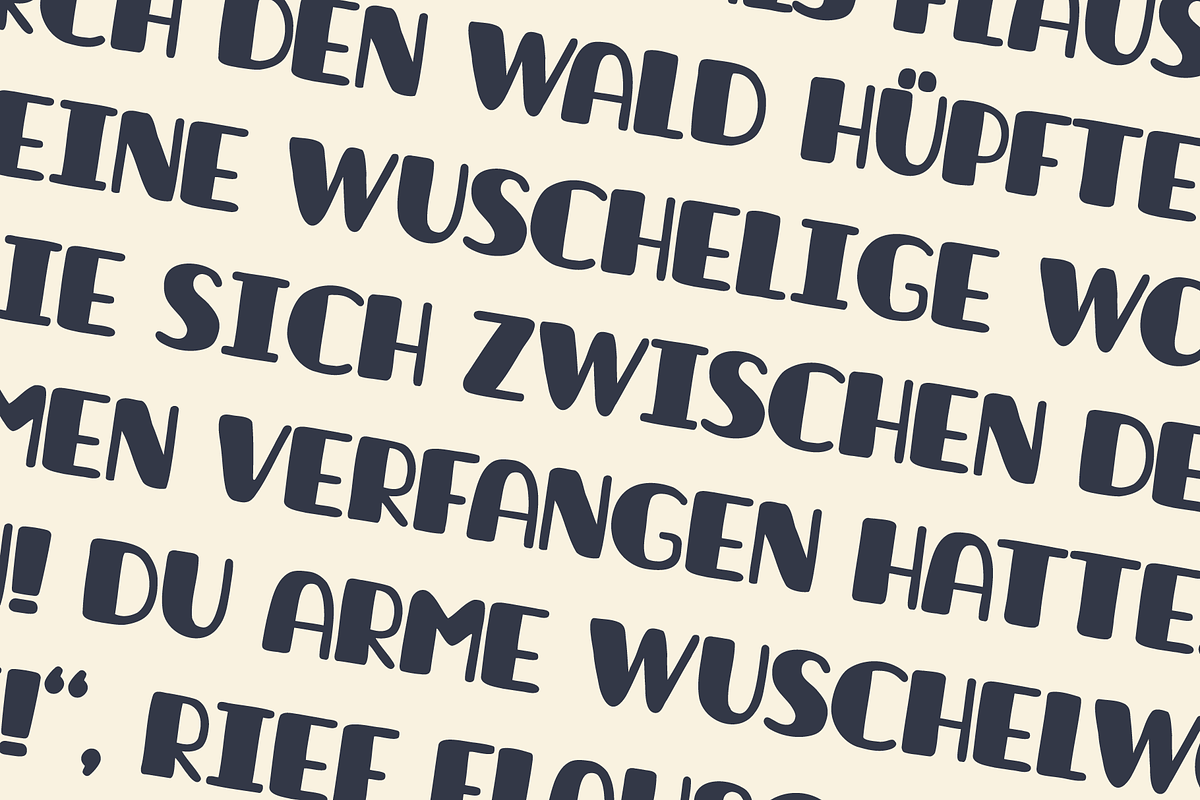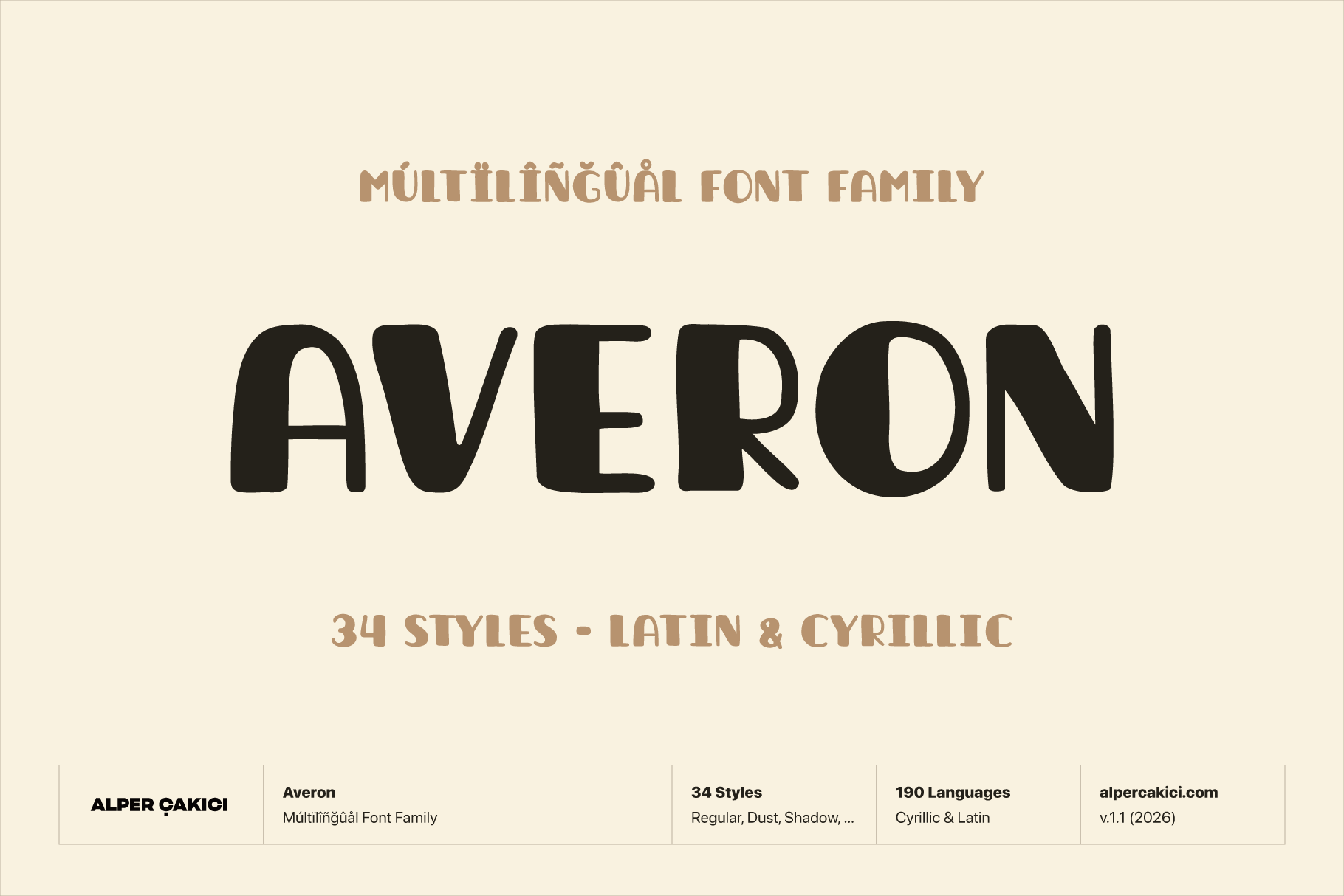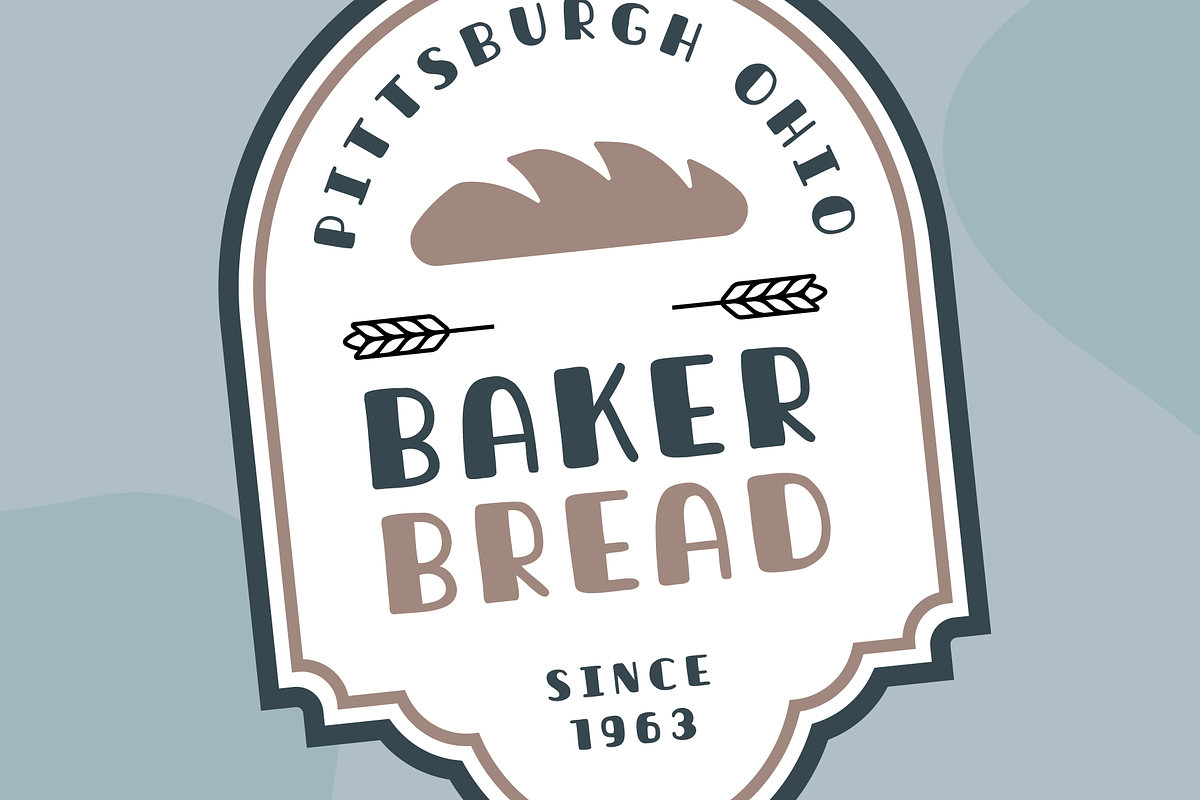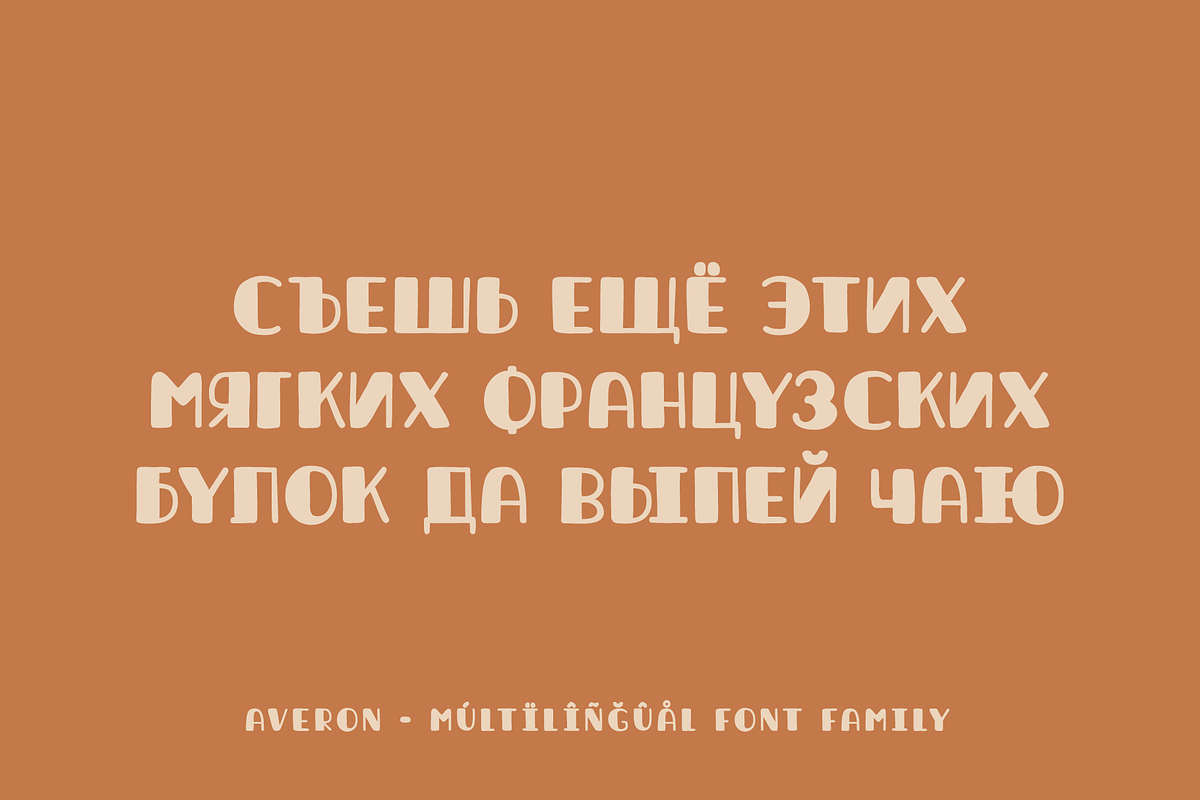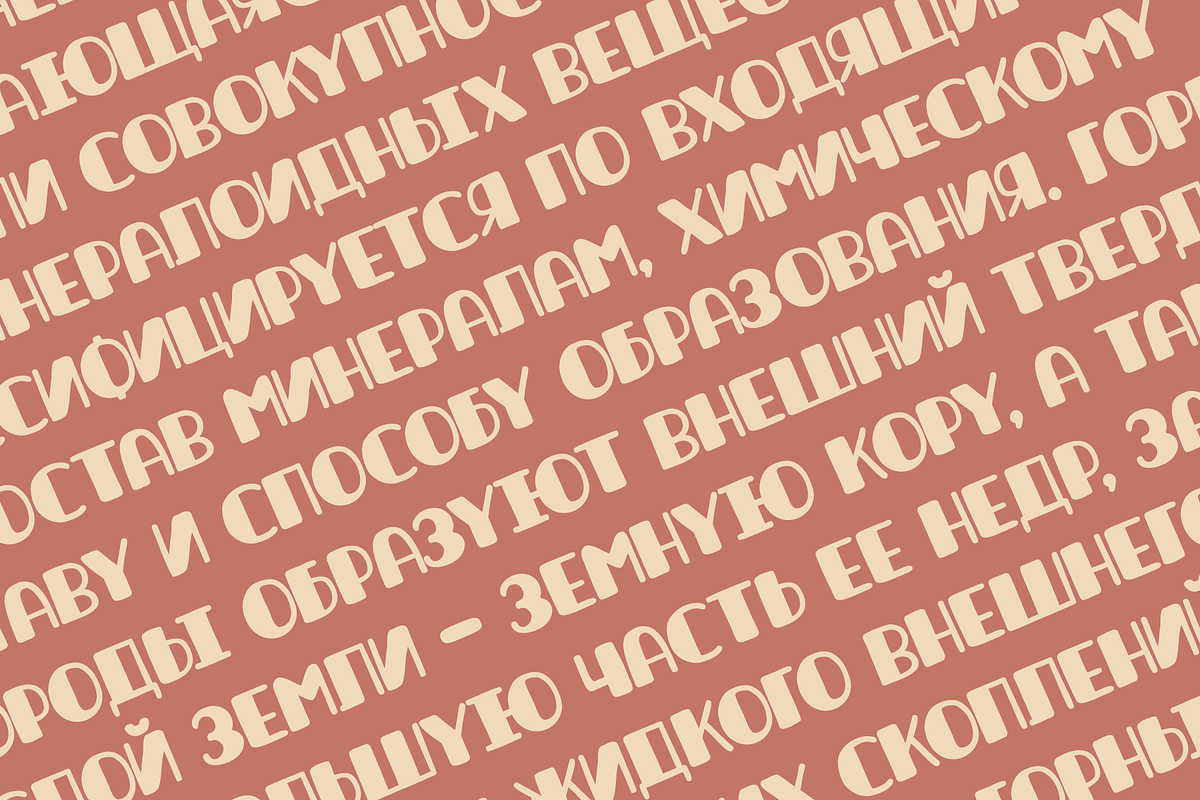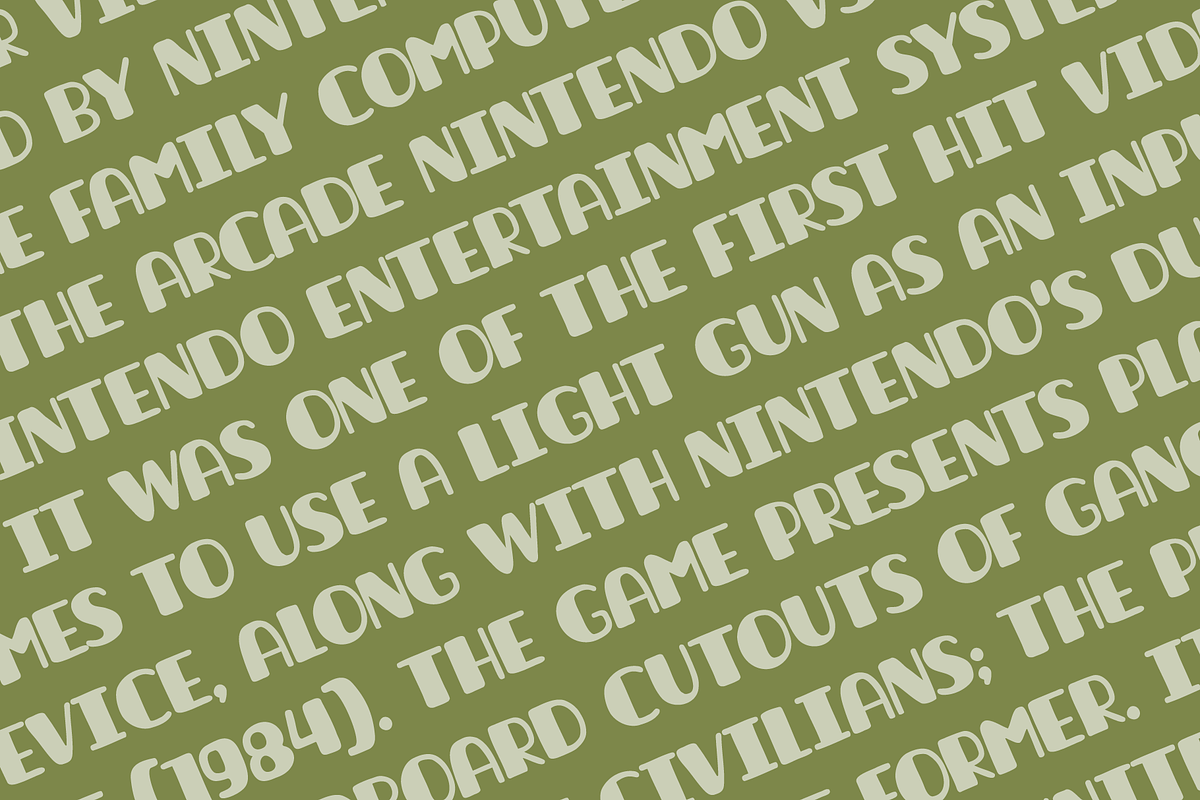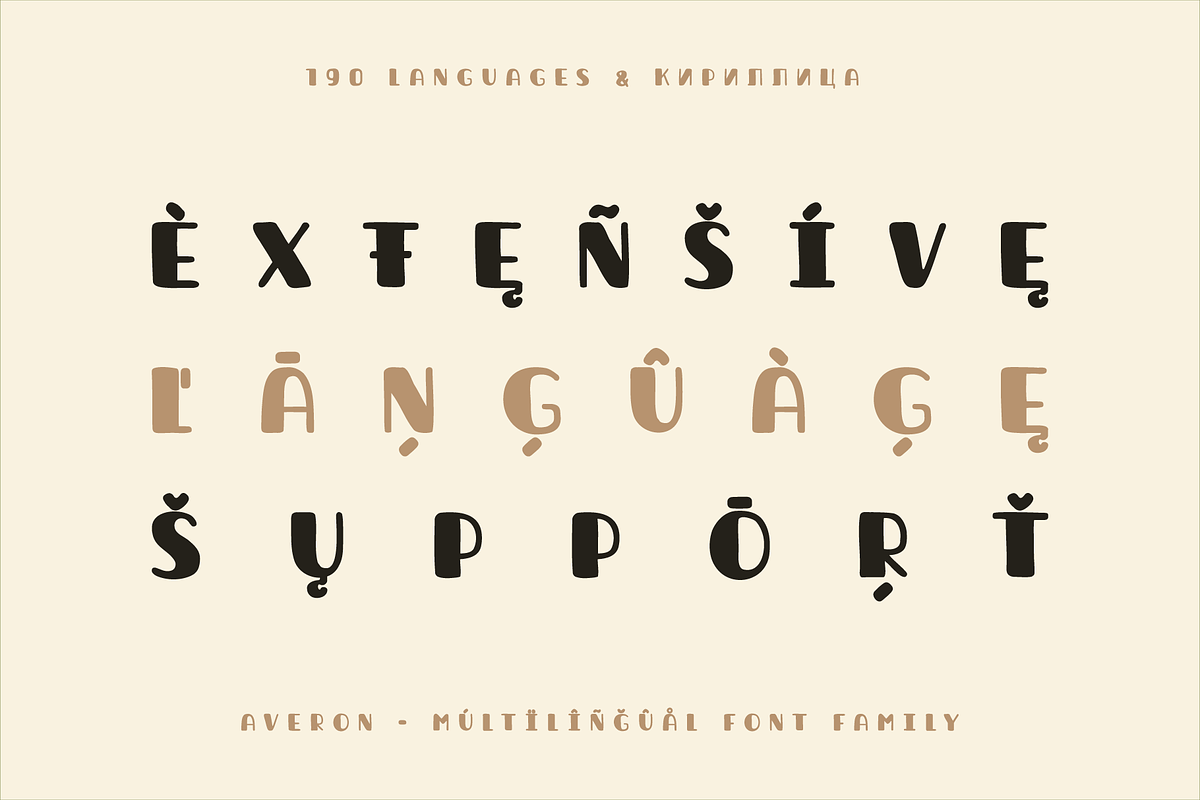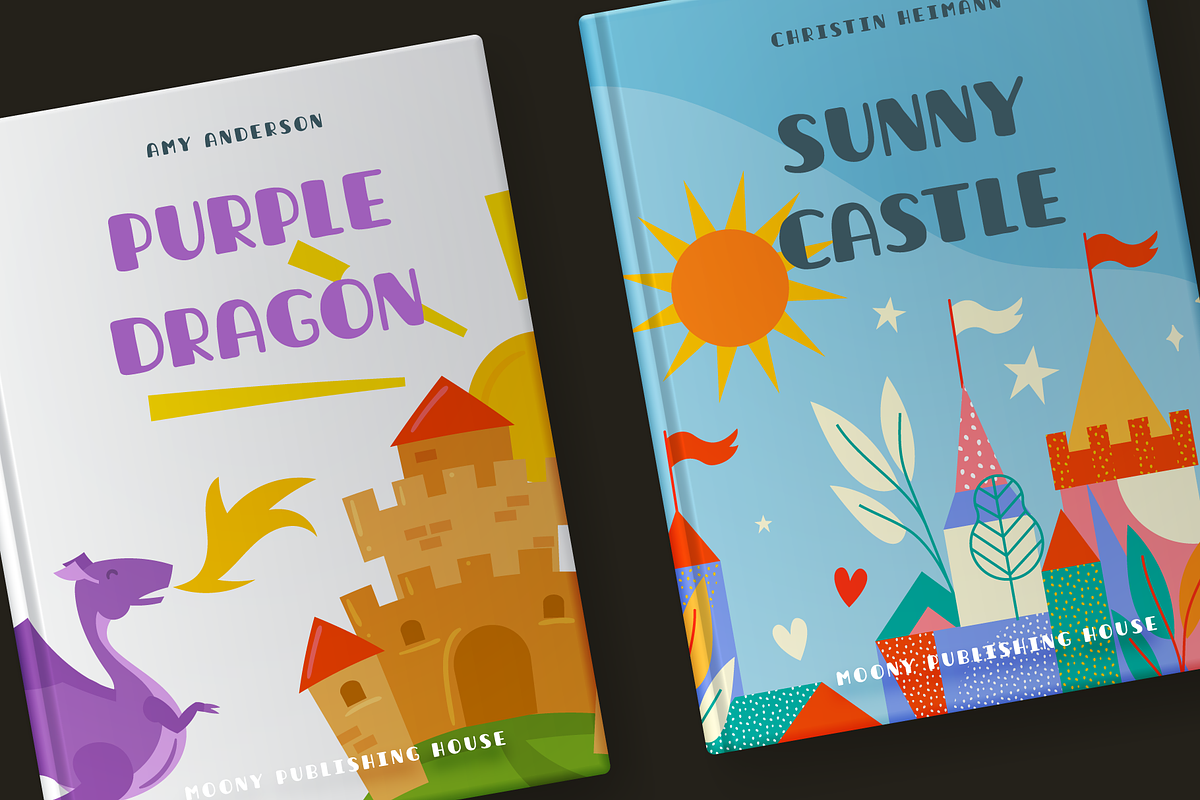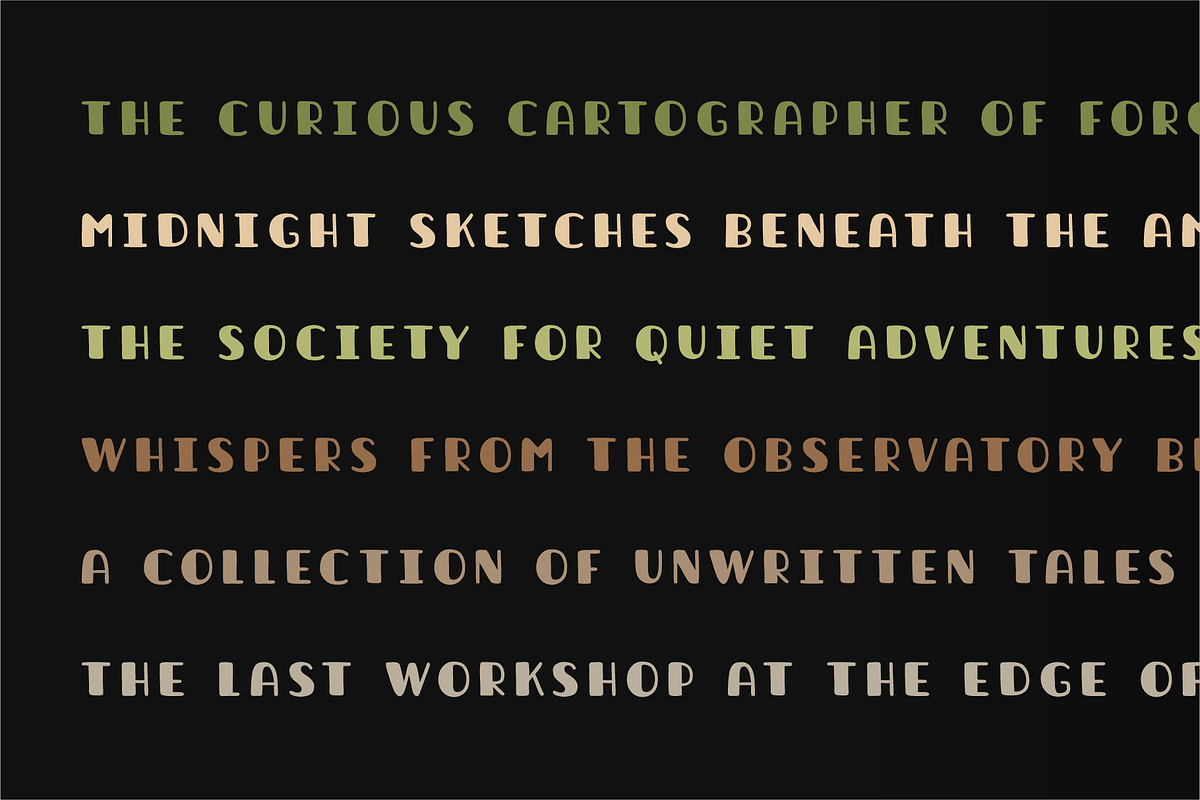
Averon Handwritten Playful Typeface
Averon is a bold, playful display typeface family that combines soft curves with a handcrafted personality. Designed to feel friendly, energetic, and expressive, it delivers an inviting visual tone that works equally well for children's brands, food packaging, toys, games, school projects, creative advertising, and modern display typography.
Built with thick strokes, rounded forms, and balanced proportions, Averon offers excellent readability while maintaining a distinctive character. Its soft construction gives headlines warmth and approachability without sacrificing impact, making it suitable for both fun commercial projects and contemporary branding.
The family includes 34 styles, providing a wide range of creative textures and decorative variations. Alongside the clean Regular, Italic, and Soft styles, Averon features unique textured versions including Basalt, Dust, Dust Rough, Inked, Inked Rough, Old Press, Old Press Rough, Riverrock, Riverrock Rough, Rough, Sandpaper, Sandpaper Rough, Shadow, Shadow Rough, and Texture, allowing designers to move effortlessly from clean modern layouts to authentic vintage-inspired artwork.
Optimized for both screen and print, Averon performs beautifully in large display settings and promotional graphics. With 483 glyphs and support for 190 Latin and Cyrillic-based languages, it offers broad multilingual coverage for international branding and publishing.
Averon is an excellent choice for:
Children's books and educational materials
Toy and game packaging
Food and beverage branding
Candy and snack packaging
Cartoon and comic titles
Logos and visual identities
Posters and event graphics
Social media content
YouTube thumbnails
Packaging design
Apparel and merchandise
Stickers and labels
Greeting cards
Birthday invitations
Seasonal promotions
Retail displays
Creative advertising
Mobile apps and casual games
Whether you're designing cheerful branding, playful packaging, colorful posters, or expressive headlines, Averon delivers a bold, friendly personality with enough stylistic variety to fit both clean contemporary work and richly textured vintage-inspired designs.